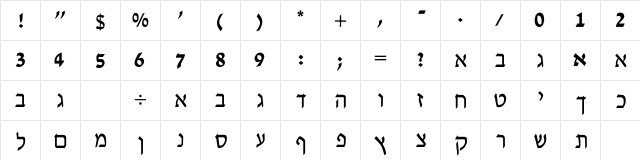
David New Hebrew Regular
Design Context for David New Hebrew Typeface
David New Hebrew takes a measured approach to typography — its balanced proportions and neutral character make it a reliable workhorse for both digital and print work.